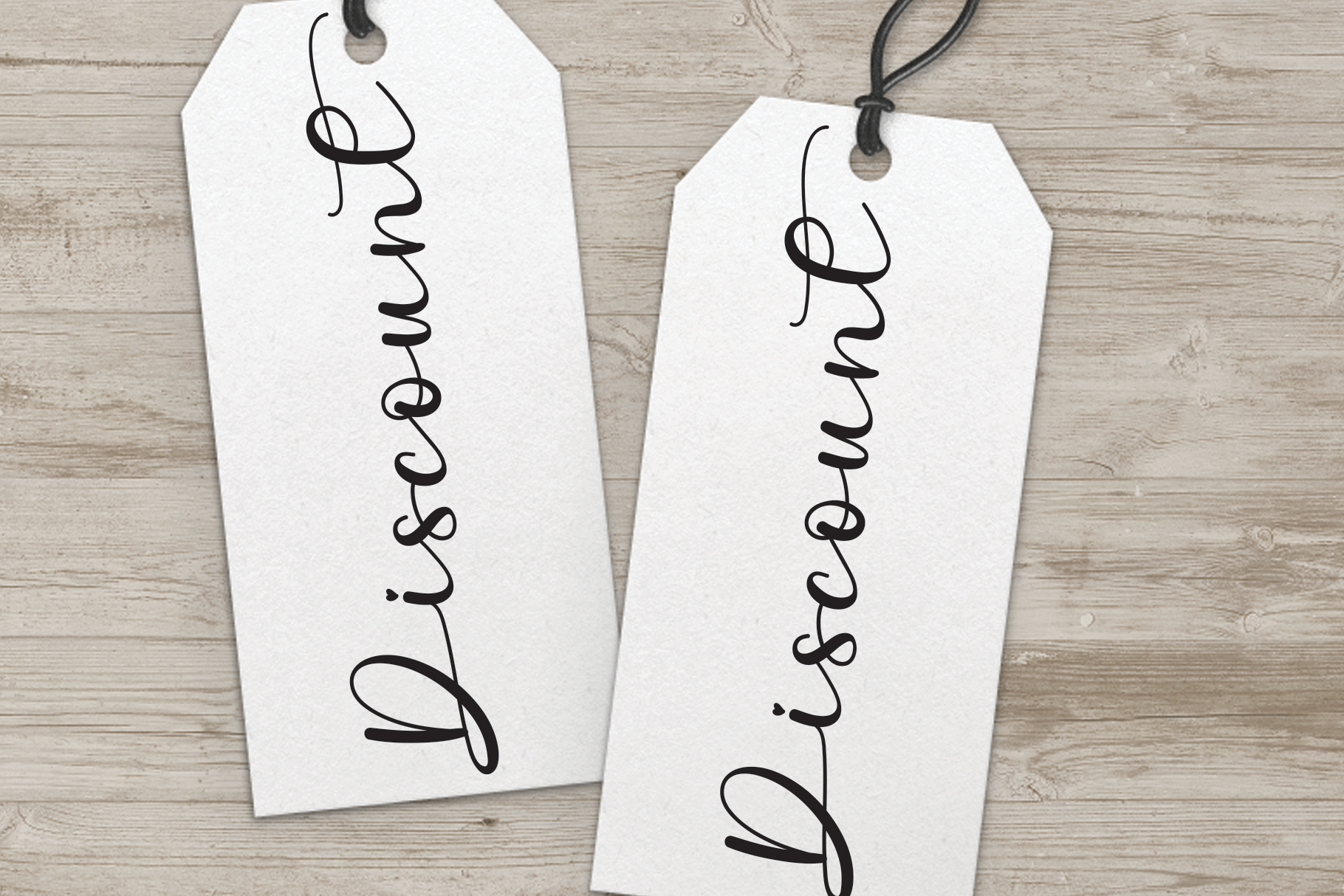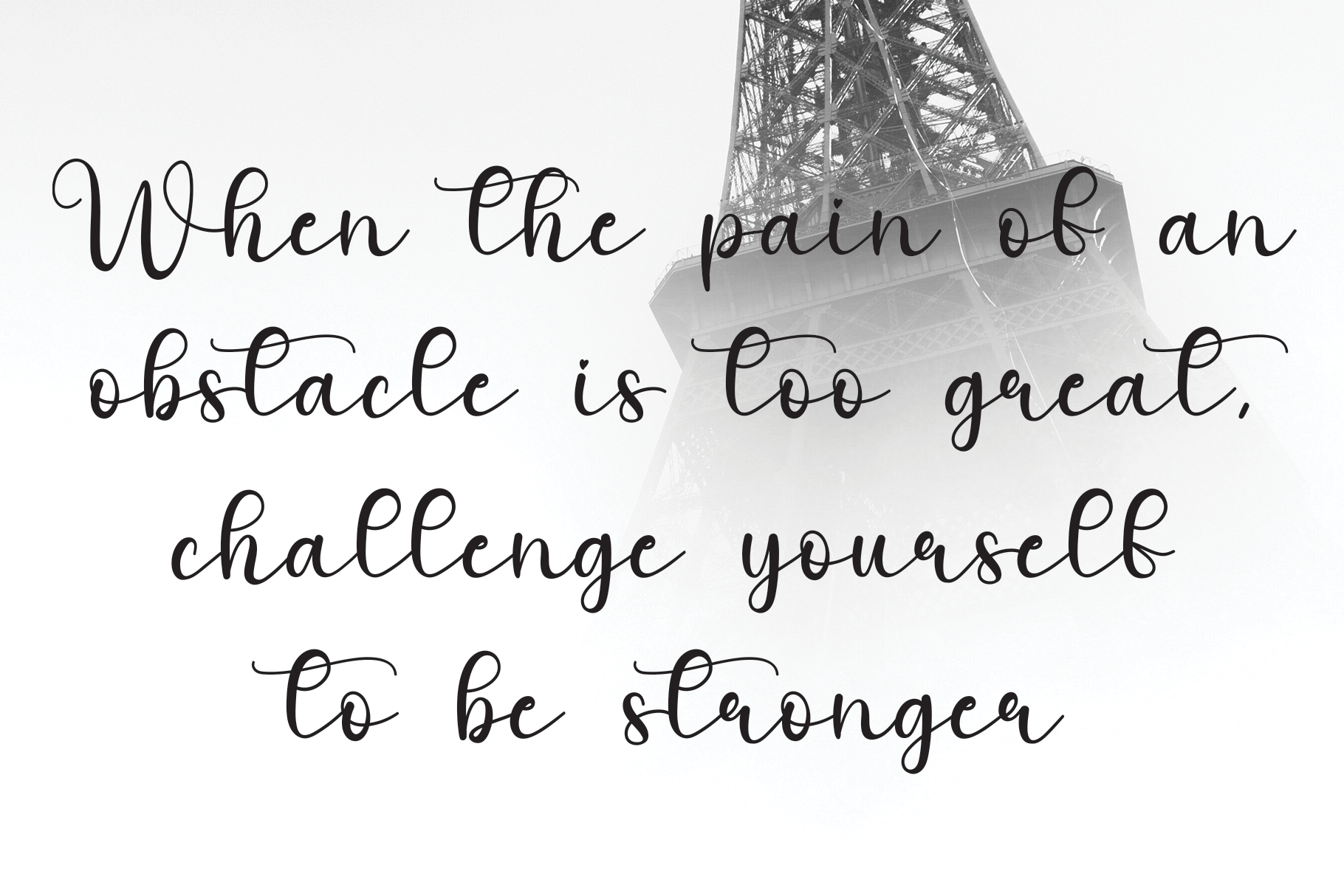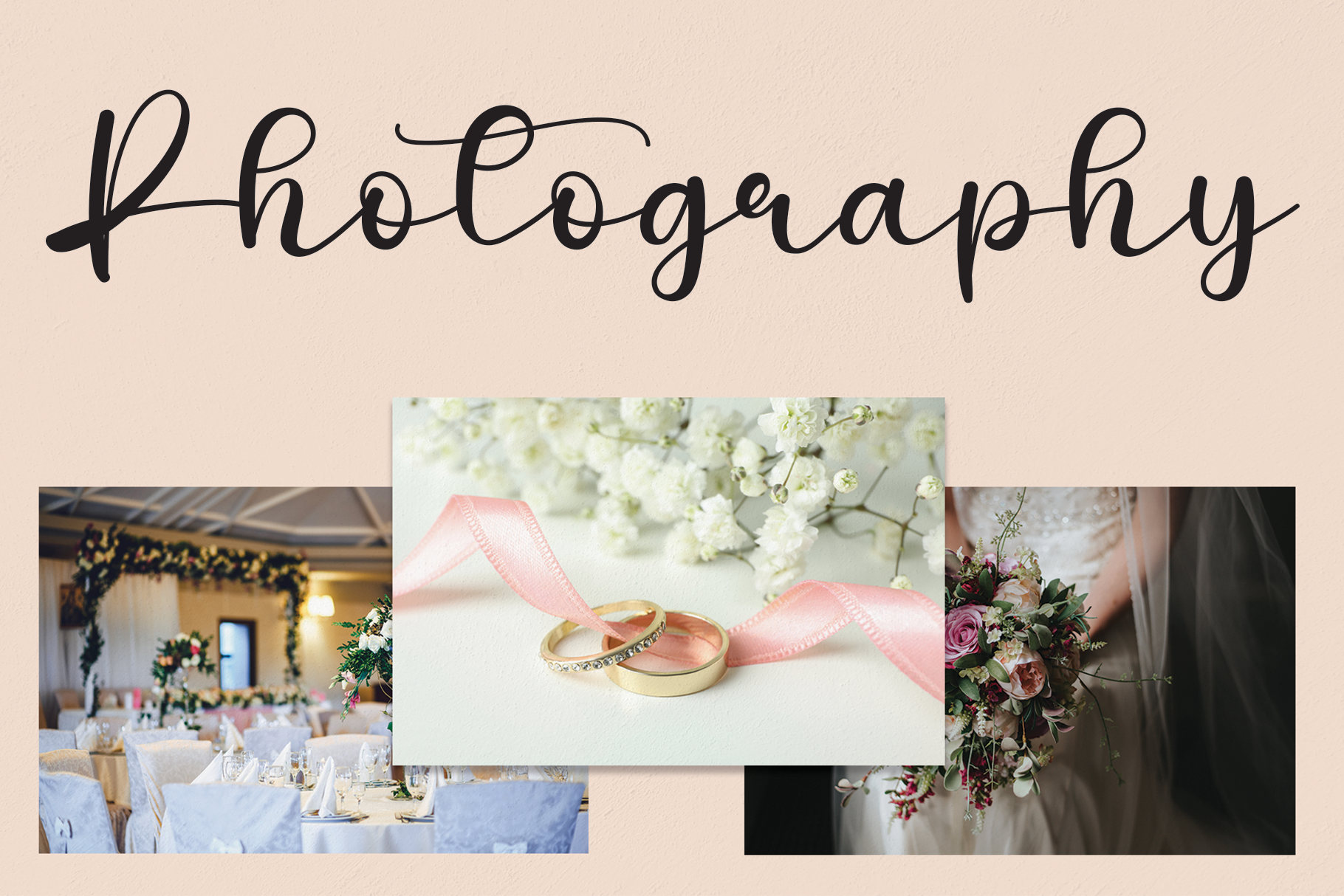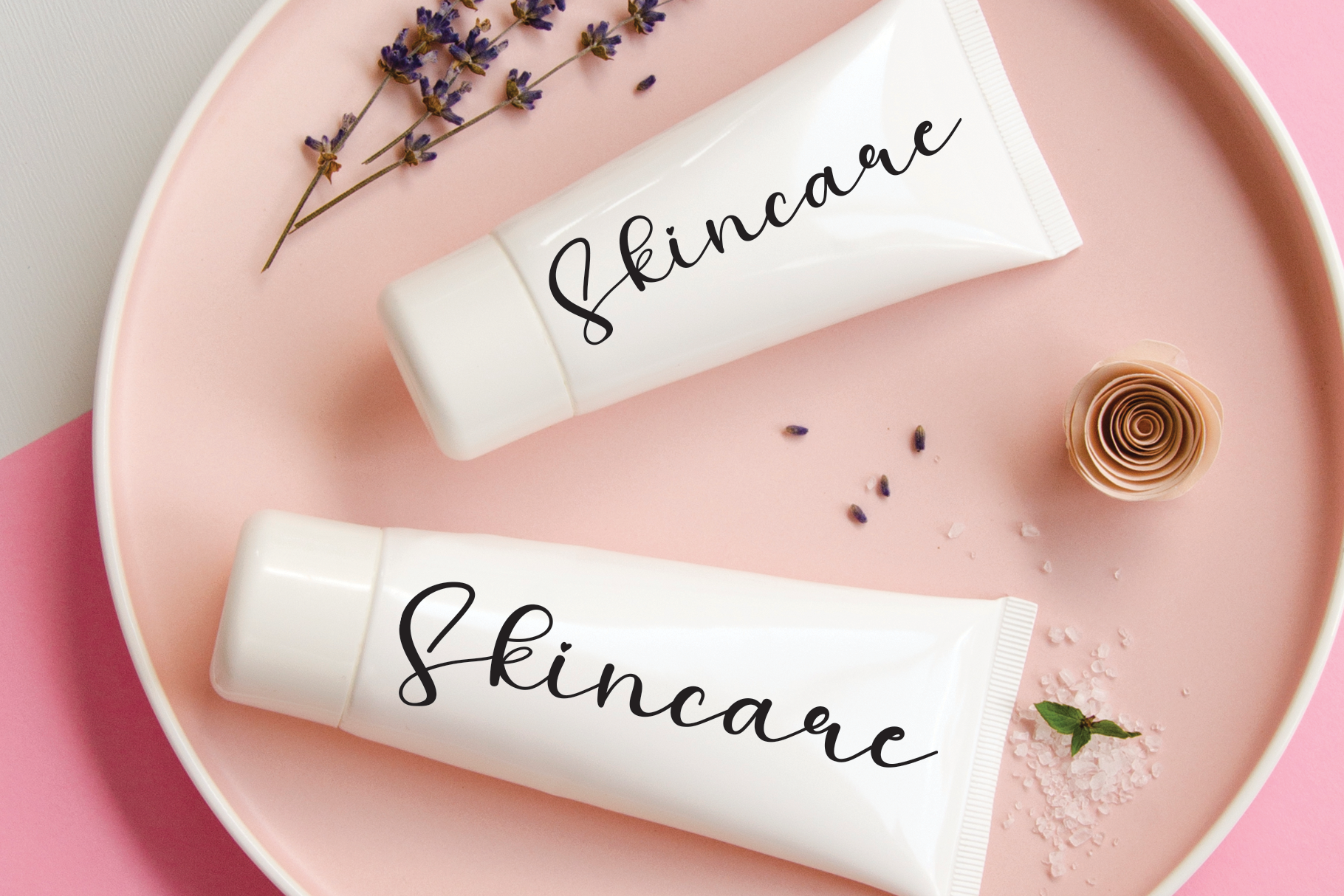
Simple Script Typeface
This is a well-balanced and sweet calligraphy typeface with characters that dance along the baseline. It will add a luxury spark to any design project that you wish to create!
the latest style letters are perfect for wall displays, wedding invitations, social media post logos, advertisements, product packaging, product designs, labels, photography, watermarks, invitations, stationery, and any project that requires taste handwriting.